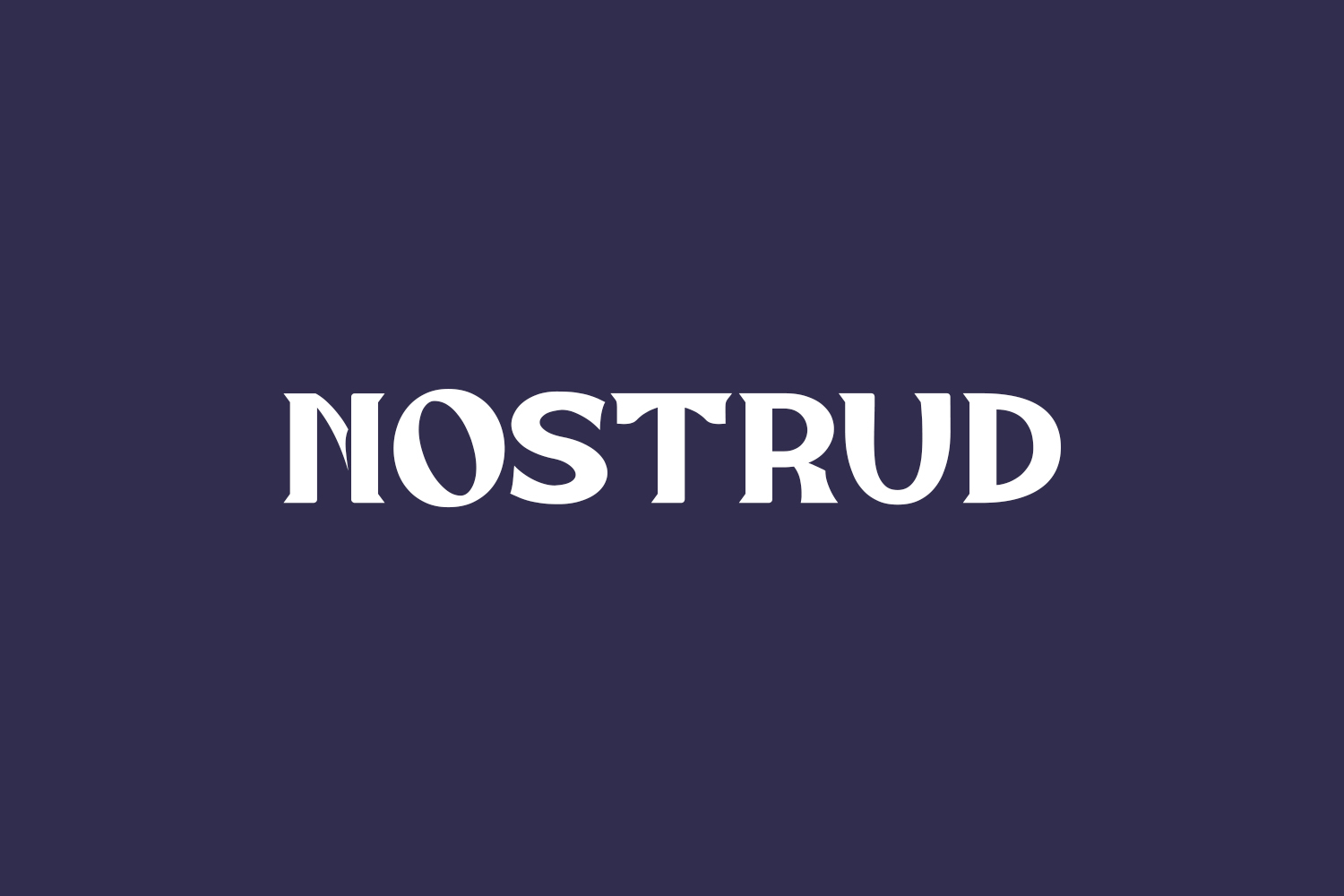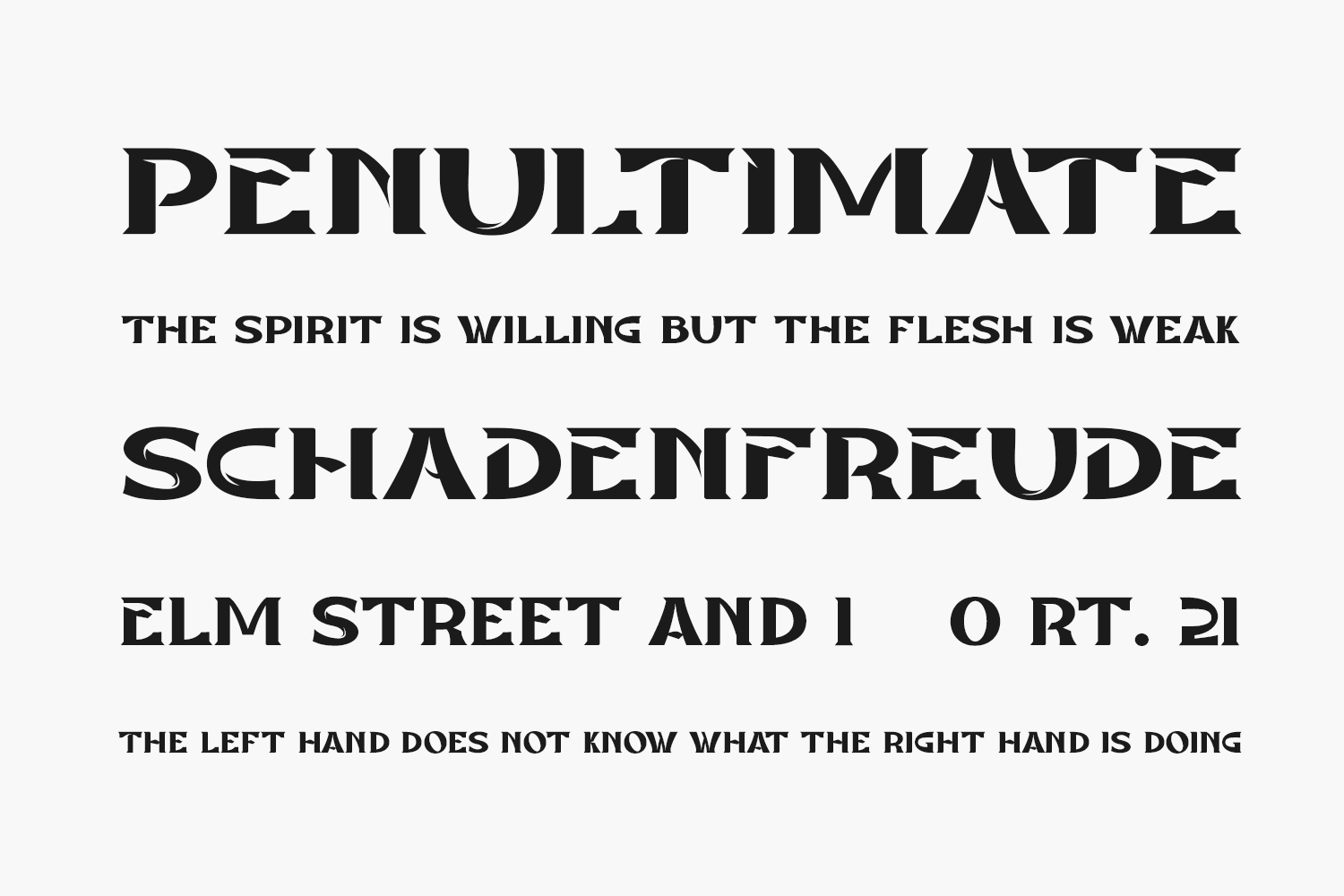
Nostrud Free Font is a bold and chunky lettered display font. No matter the topic, this font will be an incredible asset to your fonts’ library, as it has the potential to elevate any creation. Nostrud Free Font was designed by Haksen Studio is a demo and free for personal use only. Please purchase the full version for commercial use.